Death of a Typeface
In a top-ten list of all-time best type designers, Robert Granjon (1513–90) would be up there. In more sober terms, the brilliant typographic scholar Hendrik Vervliet described Granjon as ‘one of the best and most influential type designers of the pre-industrial period of typography’.
Granjon’s work as an itinerant, self-employed type designer, printer-publisher and bookseller, took him to Paris, Lyons, Antwerp, Frankfurt and Rome. He designed and produced some 90 typefaces between about 1543 and 1590 (Vervliet, 2008, p. 321). He didn’t sell cast pieces of metal type but rather he designed the more valuable punches and matrices, that he then sold to customers who could then punch and cast their own fonts.
Civilité
In addition to designing numerous Romans and Italics, Granjon designed and cut Greek, Hebrew, Arabic, Syriac, Cyrillic, and Bastard types, and quite a few fleurons and ornaments. In 1557, he designed an entirely new style of typeface, one modeled closely on Secretary Hand, a popular contemporary form of Gothic cursive handwriting.
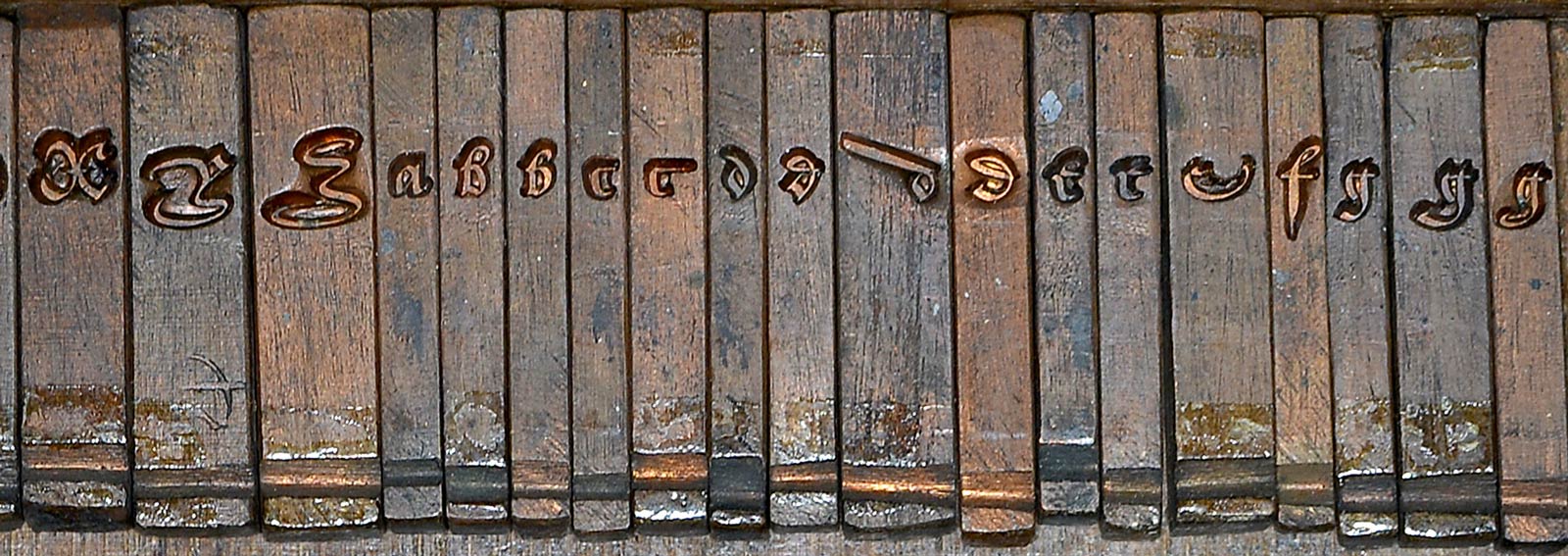
For Granjon, his new typeface was not an aesthetic fancy. Sixteenth century Europe was host to intense linguistic and philological debates: about the standardization of language, of grammar and spelling, for example. Looking around, Granjon saw that the Italians had their Roman and Italic (even now named after their place of origin), and the Germans their evolved Gothic, or Schwabacher. Granjon wished for Civilité to be France’s national typeface, something that was instantly recognizable as French, but also practical and familiar enough to be easily readable.
Granjon called his new typeface ‘lettres françaises’. The name Civilité was not used until the eighteenth century, after their early appearance in civilité books, like Erasmus’s La civilité puérile, (‘On Civility in Children’), a young person’s guide to good manners, or etiquette. Interestingly, just to illustrate how Civilité types had come to be associated with such books, I stumbled upon an edition of the same Erasmus book published in 1877 and, although set in Roman, a single line on its title-page is set in Civilité, a late nod to its origins.
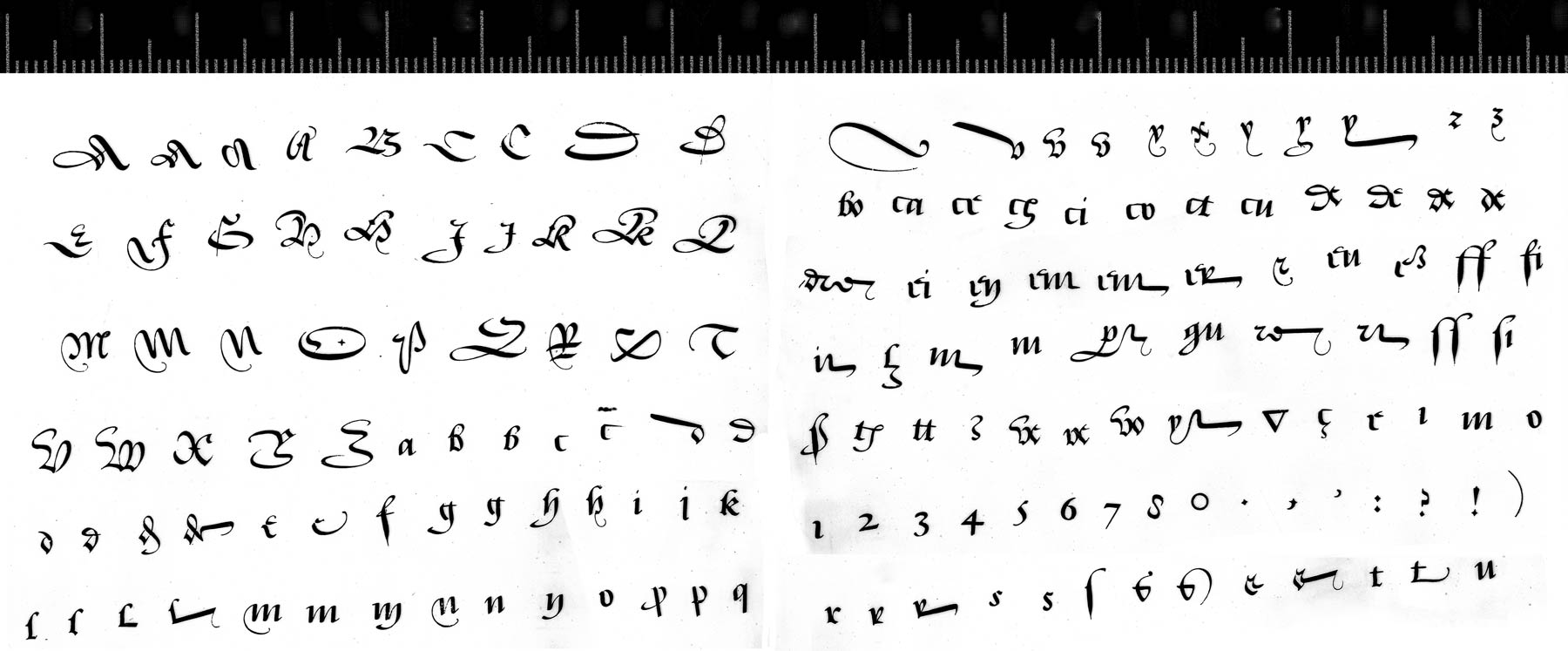
Only joking
Of the early books set in Civilité types, my favorite is Facecies et motz subtilz, a bilingual, French & Italian, joke-book printed by Granjon in 1559, where his Civilité is used to set the French text, opposite the Italian set in his own Italic type. For two fonts that are roughly equal in (point) size, notice how much wider the Civilité is; a characteristic compounded by its ornate capitals and those distinctive and freakishly wide d, u and v.
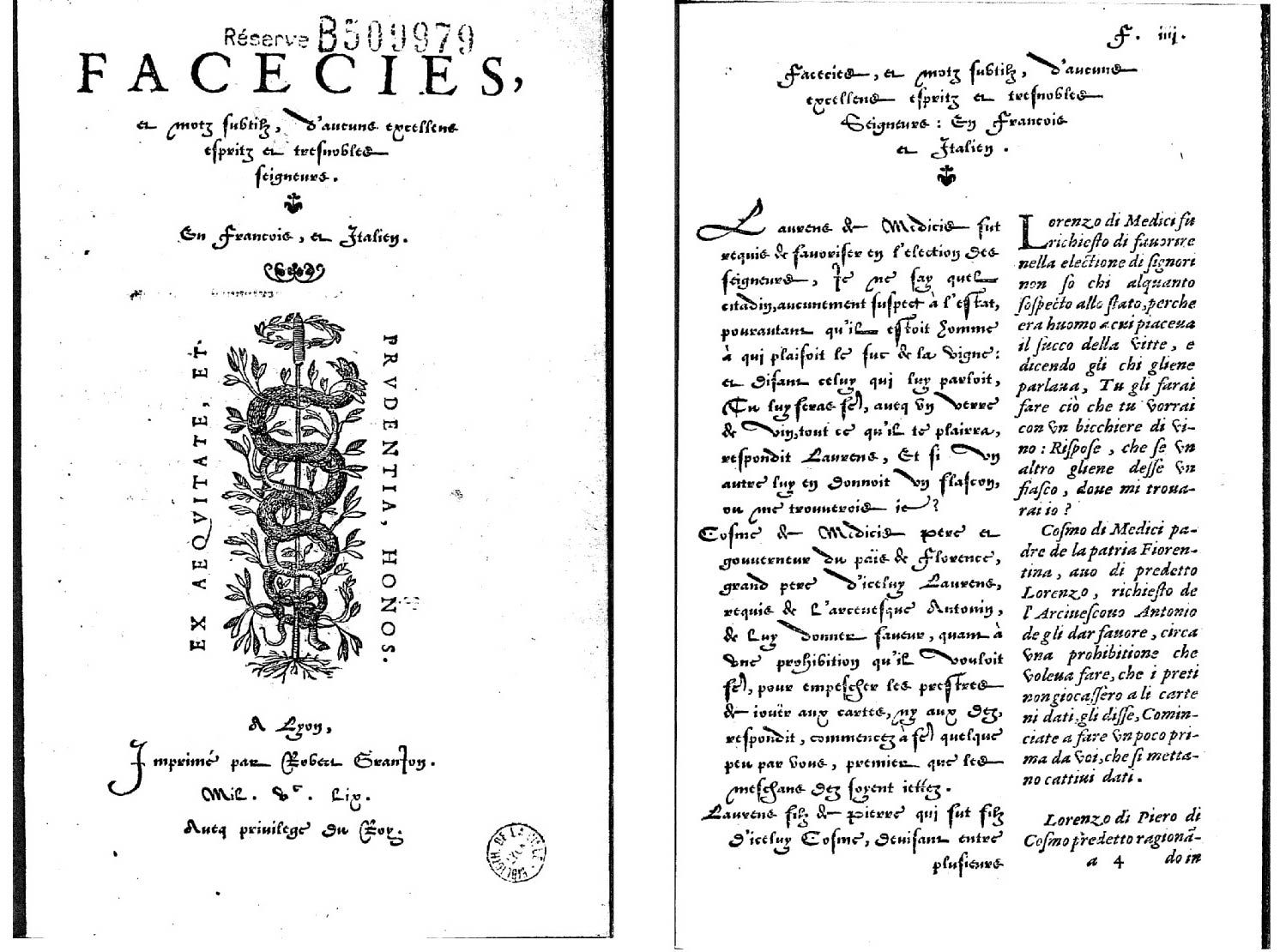
Fa-fa-fa-fa-fashion
So why didn’t it catch on? Why aren’t all French books typeset in Civilité? It’s often repeated that it simply has too many sorts (characters), with numerous alternate forms and ligatures, thus making it more expensive and more complex to typeset. Perhaps that contributed to its relative unpopularity but it’s hard to believe that it was a significant factor in its failure. And, although some of the later Civilité types got a little carried away with huge numbers of characters or glyphs, Granjon’s ‘first Civilité had at least 138 sorts, as compared with some 120 usual at the time for Roman or Italic’. (Carter & Vervliet, p. 14)
Another factor to consider in the slow adoption of Civilité is that Granjon, in December 1557, was granted a privilege, a kind of early patent, for his Civilité types, protecting them from copycat or plagiarized designs for a period of ten years. Although that certainly made good financial sense for Granjon, such protections would have stymied its broader adoption. However, Granjon’s Civilité was still copied. As early as 1558, within about a year of Granjon’s Civilité debut, Philippe Danfrié, in Paris, had made his own Civilité (in three sizes!) which he used for a book about court etiquette.
[Granjon] invented and cut these “lettres de civilité”, the ultimate and otherwise vain Gallican reaction to the invasion of “Romans” and “Italics”.
— Vervliet, 2015, p. 191
During the first 50 years of printing, Gothic fonts were used for almost 80% of all fifteenth-century books. But in the subsequent century, Roman and Italic fonts eventually overtook their Gothic or Blackletter counterparts, except in a few Gothic strongholds — notably, in Germany and parts of Northern Europe. Civilité was invented for ideological reasons but failed owing to changing tastes, a mistimed typographical fashion statement, if you like. Civilité was elaborate and Gothic at a time when all-things Gothic were already in decline. ◉